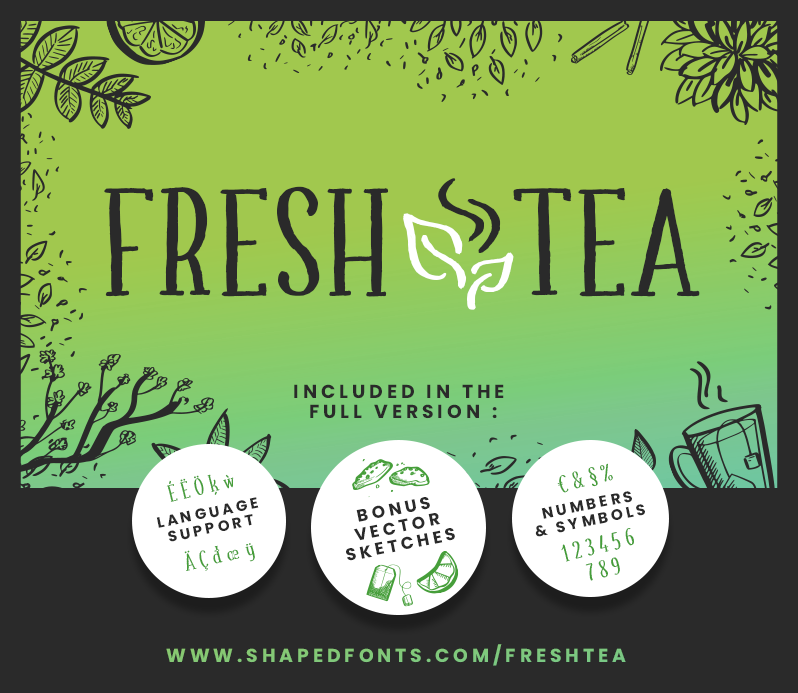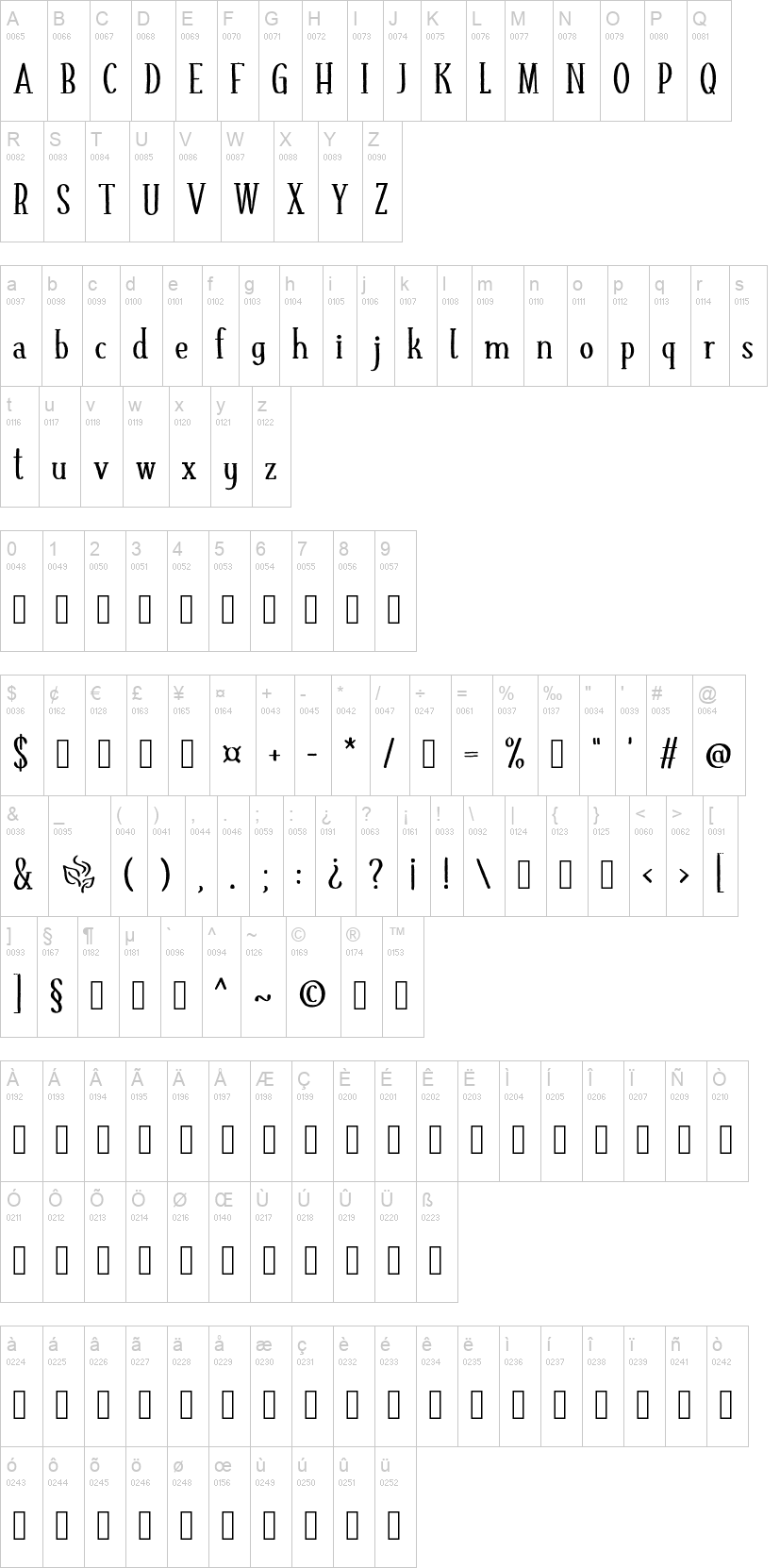
The font both works in upper and lower case, making it a true multi-purpose typeface which can be used for packaging, posters or logos. Get fresh today!